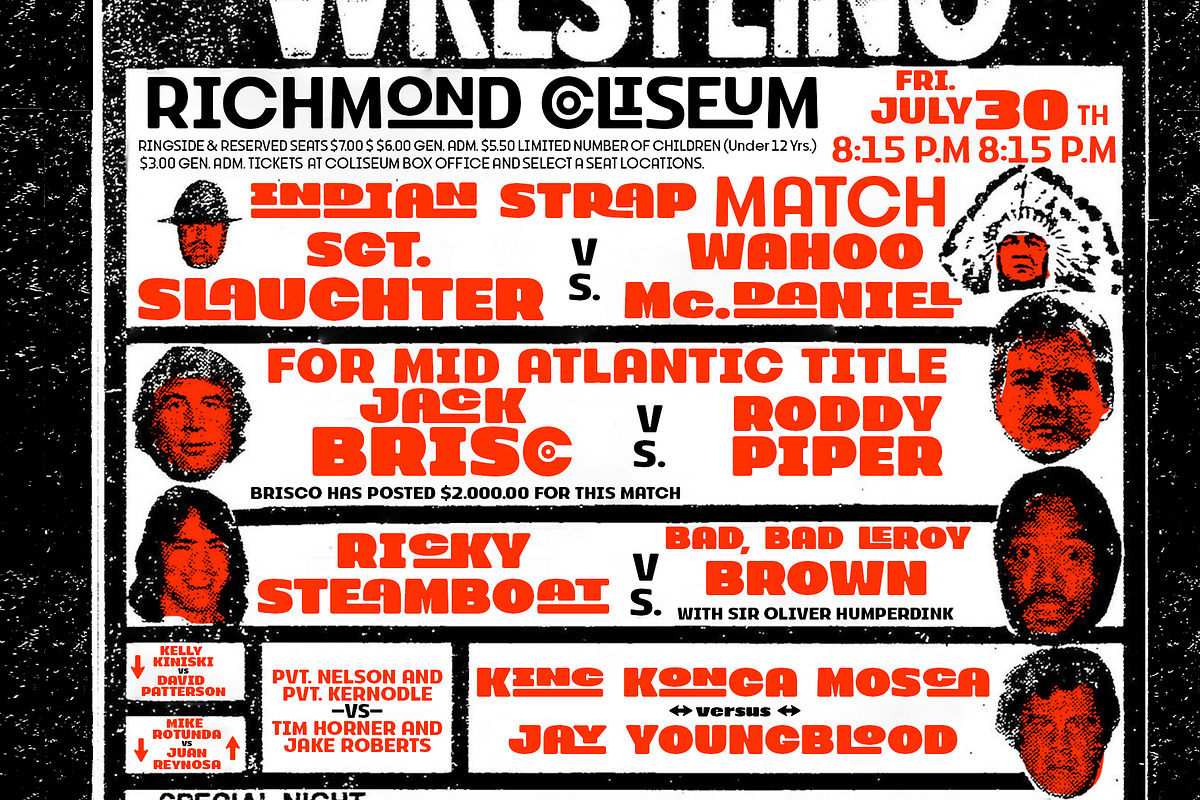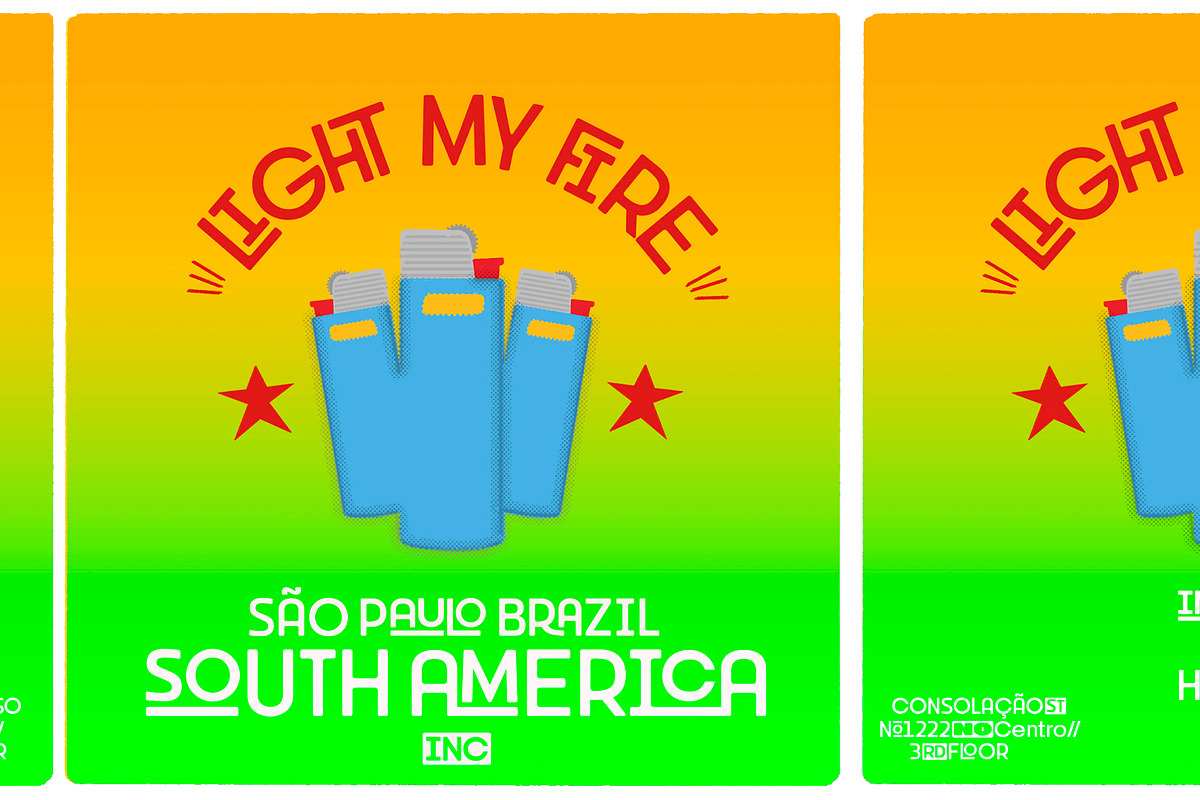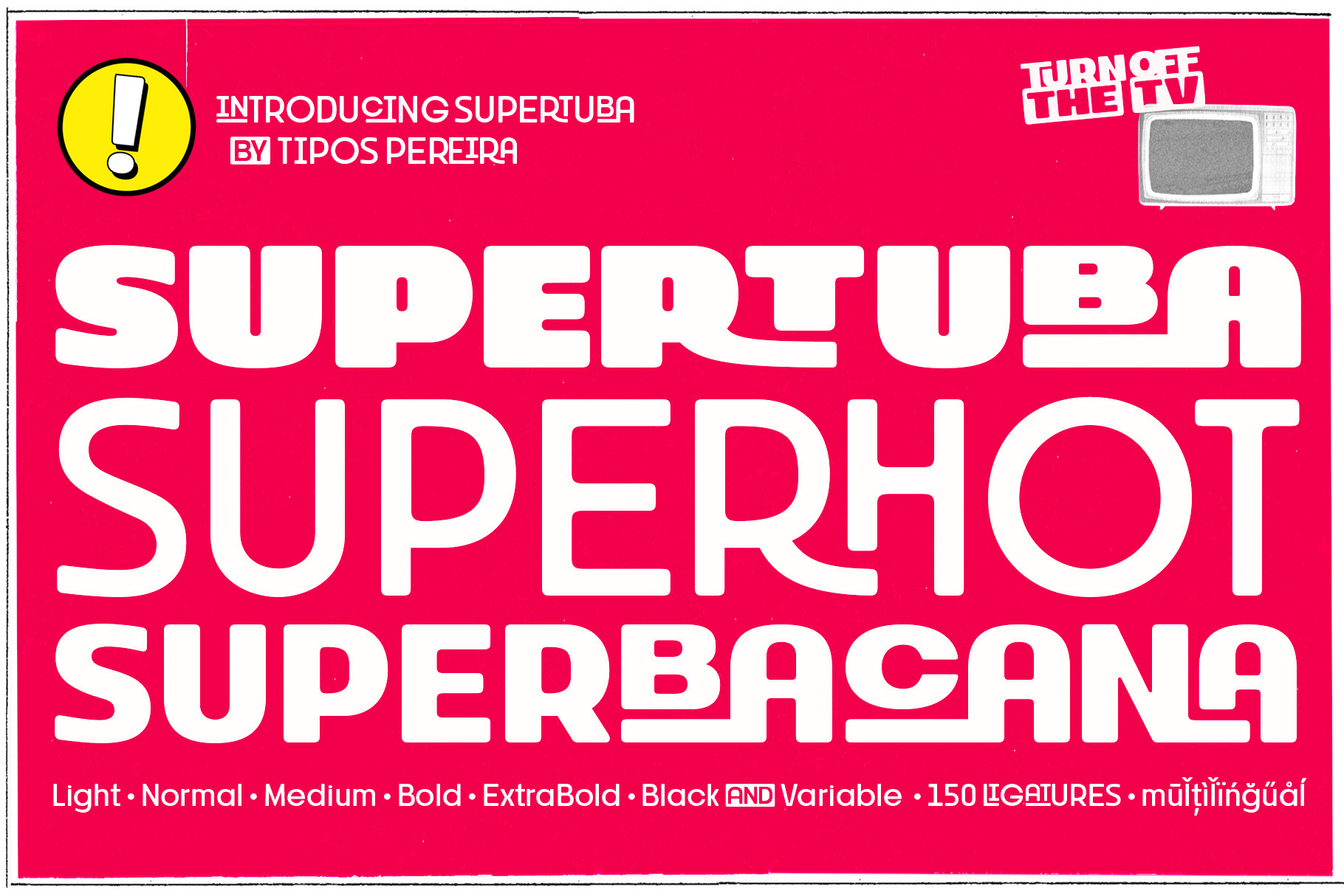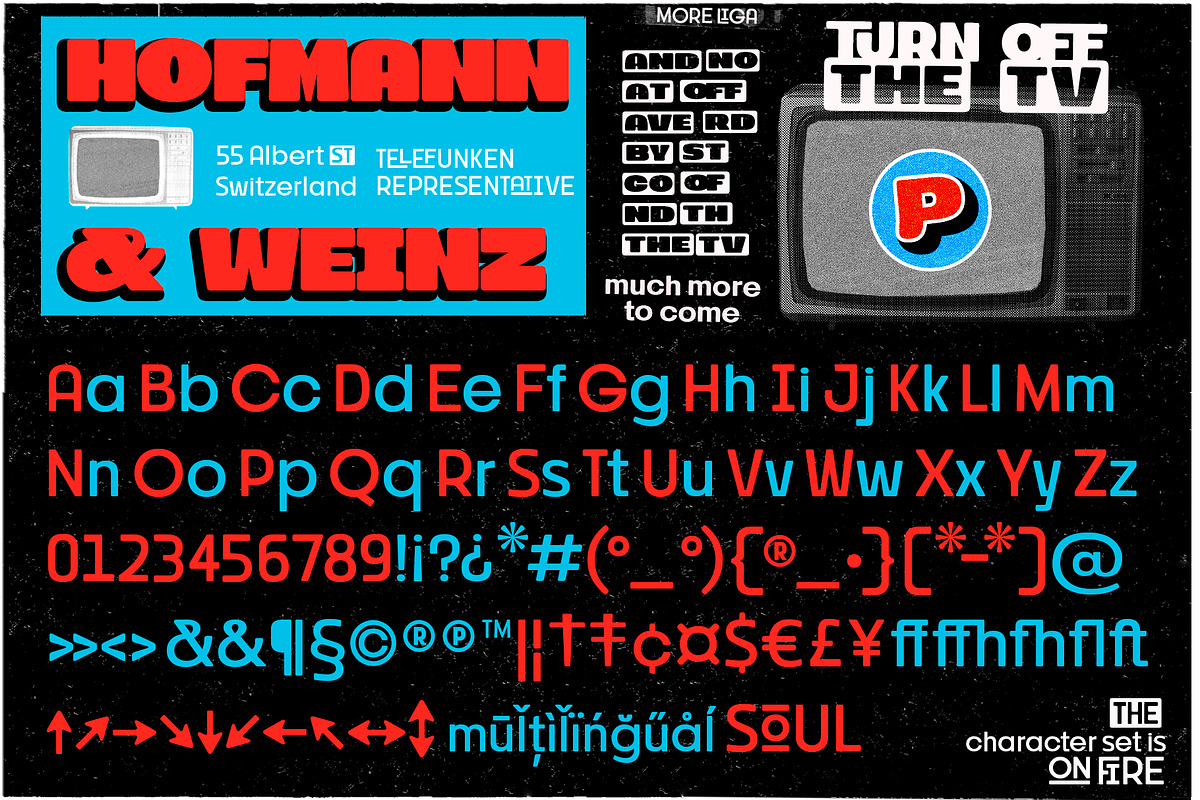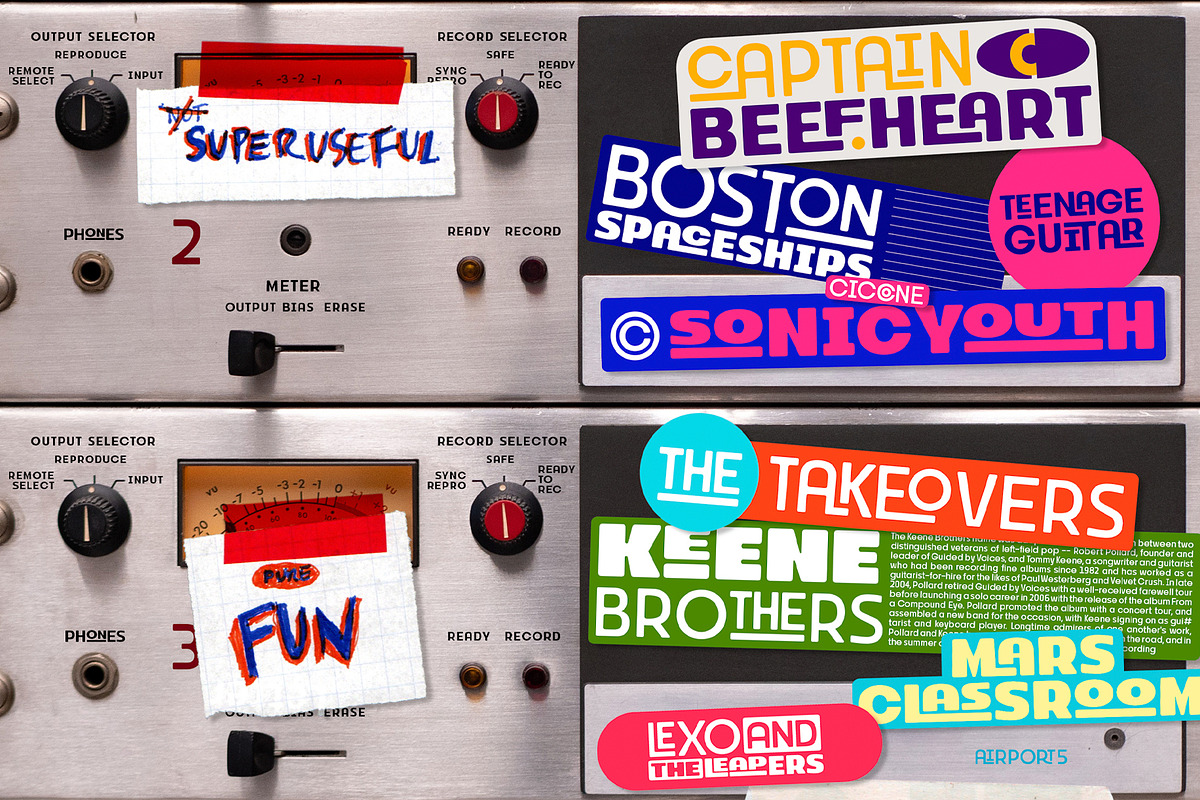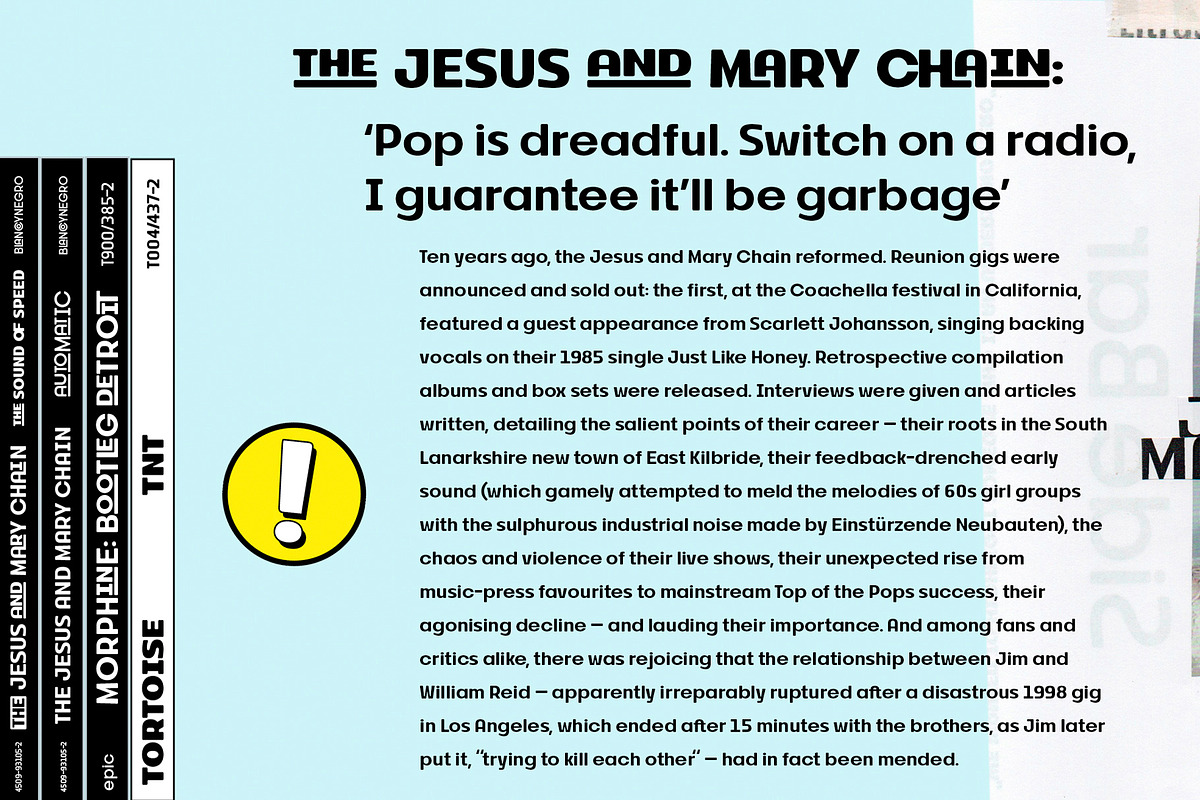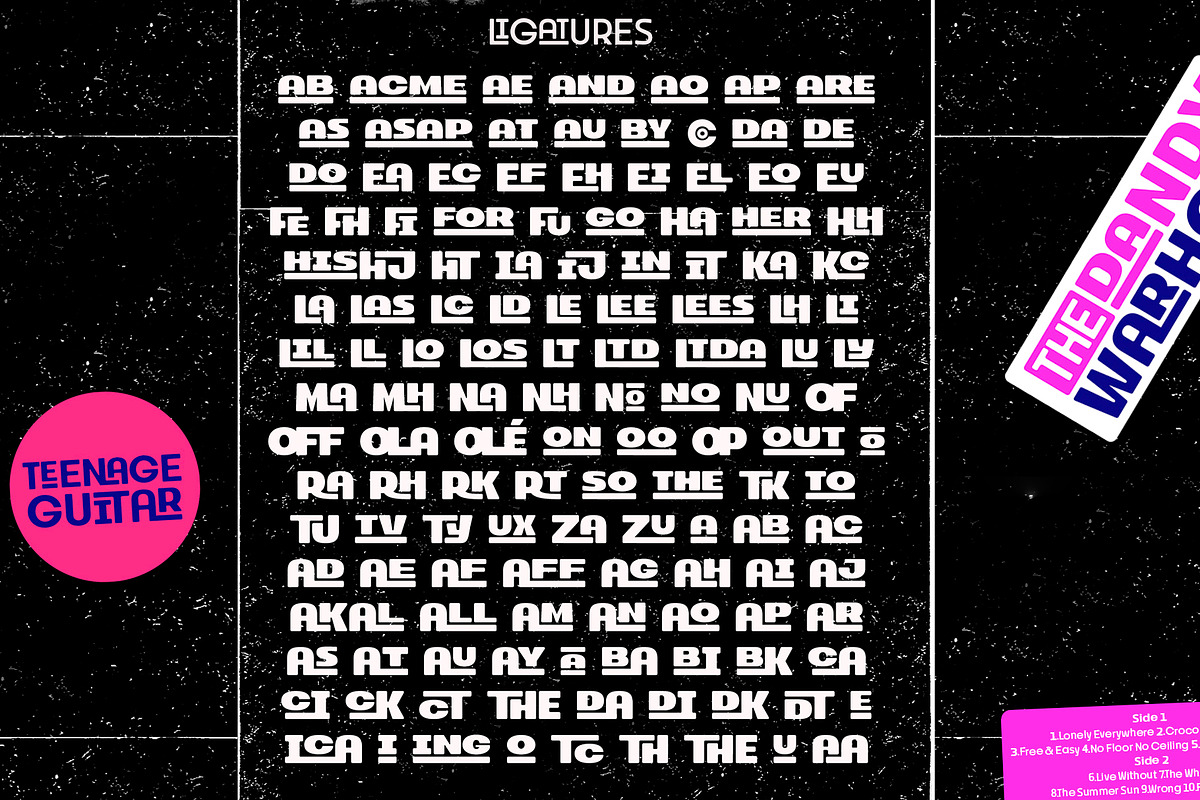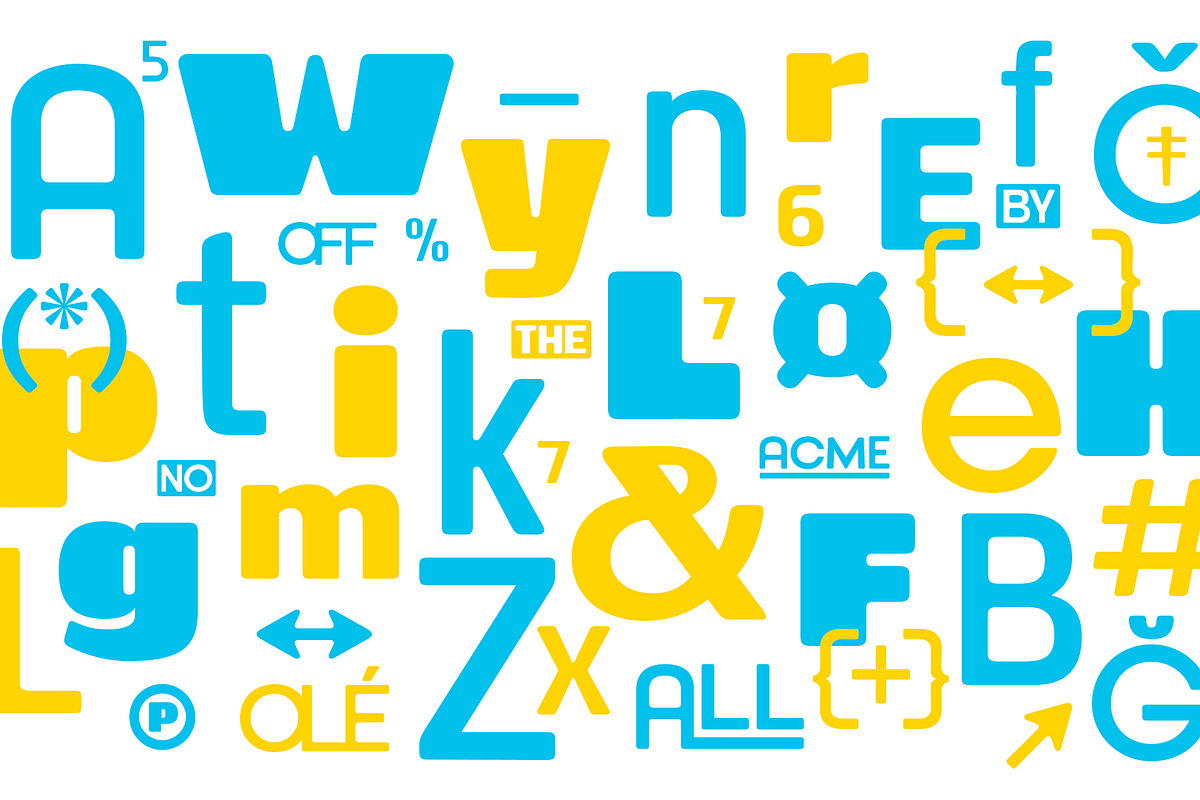
Supertuba | Display Geometric Font
Supertuba is a vernacular geometric sans serif display type family with 6 weights and an extra variable font. There's literally dozens of ligatures in this font so It works very well for flyers, stickers and posters, also you can use as a text font if you're looking for something bold. Supertuba has multilingual support and some useful opentype features.
Letterboards that used to be seen in churches, dive bars and butcher shops are the main inspiration for this typeface.
The name Supertuba came from an old supermarket that no longer exists in the city of Indaiatuba , I just believe this name is super fun (at least in Portuguese) and wanted to keep it alive. I was in Indaiatuba when I get started designing this typeface so this is fair enough. Supertuba the third piece of a particular trilogy of fonts that Stubby and Stubby Rough take part, from the lazy vernacular drawing to an unusual geometry.
Supertuba is a Tipos Pereira font designed by Marcelo Magalhães.